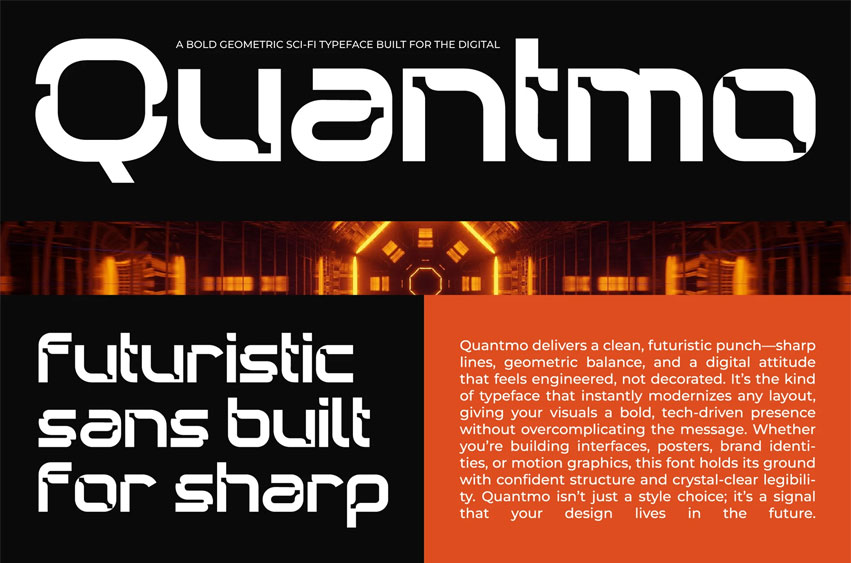
Quantmo Font is a unique, modern geometric font with a modern, futuristic, bold, and geometric style.
It is a futuristic display font perfect for branding projects, logos, social media posts, product packaging, labels, etc.